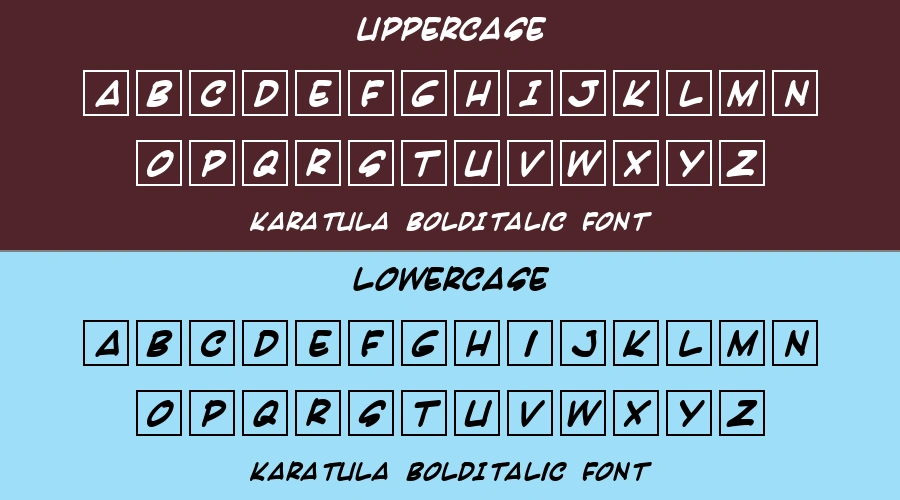
About Karatula BoldItalic Font
Karatula BoldItalic Font embodies typographic excellence through its masterful combination of confident strokes and consistency. Created for corporate communications, this typeface delivers exceptional longevity and creative potential across all applications. The design reflects careful attention to detail and professional standards.
Advanced capabilities include distinctive modular forms and versatile subscript/superscript, giving designers creative control. When used in digital platforms, Karatula BoldItalic Font exhibits remarkable memory recall. The harmonious balance between bowl shape and professional credibility sets this typeface apart.